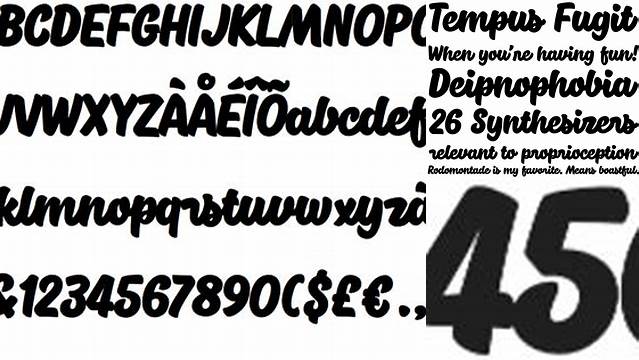
Introduction: Unleash Your Creativity with Cherry Brush Bold
Hey guys! Are you on the hunt for a font that screams boldness, creativity, and a touch of playful charm? Look no further! The Cherry Brush Bold font is your answer. This dynamic typeface is perfect for a myriad of design projects, from eye-catching headlines and striking logos to captivating social media graphics and engaging website banners. In this comprehensive guide, we'll dive deep into the world of Cherry Brush Bold, exploring its unique characteristics, its versatility across different design applications, and, most importantly, how you can snag it for free. Get ready to unleash your inner artist and elevate your designs with the sheer power and personality of Cherry Brush Bold!
When you are diving into the world of typography, it is important to recognize the impact a bold font can have on your overall design. The Cherry Brush Bold font, with its unique blend of playfulness and strength, stands out as a stellar choice for designers aiming to make a statement. This font isn't just about letters; it's about conveying emotion, energy, and a distinct personality. Its hand-drawn aesthetic adds a touch of authenticity and warmth, setting it apart from more sterile, digital fonts. Whether you are crafting a logo for a vibrant new brand, designing posters for an upcoming event, or revamping your website's visual identity, Cherry Brush Bold offers a versatile tool to capture attention and leave a lasting impression. Imagine the bold strokes gracing the cover of a magazine, the playful curves dancing across a promotional flyer, or the confident lettering anchoring a website's header. The possibilities are endless, and with the added bonus of being available for free download, Cherry Brush Bold opens up a world of creative potential for designers of all levels. This font is more than just a typeface; it's a gateway to expressing your unique vision and bringing your design ideas to life with a touch of artistic flair.
Finding the perfect font can often feel like searching for a needle in a haystack, especially when you are looking for something that balances uniqueness with readability. Cherry Brush Bold cleverly bridges this gap, offering a typeface that is both distinctive and easy on the eyes. Its bold strokes command attention, while the subtle imperfections of its hand-drawn style inject a sense of humanity and approachability. This makes it an ideal choice for projects where you want to convey a message with both confidence and warmth. Think about using it for the title of a children’s book, where its playful nature can spark imagination, or for a motivational poster, where its bold presence can inspire action. The versatility of Cherry Brush Bold extends beyond print materials; it shines just as brightly in digital applications. Consider incorporating it into your website design to add a touch of personality, or using it in social media graphics to stand out from the crowd. The font's inherent energy and dynamism make it particularly well-suited for projects that aim to capture attention and evoke emotion. Furthermore, the fact that it’s available for free download makes it an incredibly accessible resource for designers working on a budget. It’s a fantastic opportunity to experiment with a high-quality font without breaking the bank, allowing you to explore new creative avenues and push the boundaries of your design work. With Cherry Brush Bold, you’re not just choosing a font; you’re choosing a creative partner that can help you tell your story in a compelling and visually engaging way.
The beauty of the Cherry Brush Bold font lies not only in its aesthetic appeal but also in its versatility. It's a font that can adapt to a wide range of design styles and project requirements, making it an invaluable asset in any designer's toolkit. Its bold and energetic character makes it a natural fit for projects that require a strong visual impact, such as posters, flyers, and advertisements. However, its playful and slightly imperfect hand-drawn style also lends itself well to more lighthearted and creative applications, such as greeting cards, invitations, and even branding for businesses that want to project a friendly and approachable image. Imagine using it to create a logo for a coffee shop, where its warmth and character can instantly create a welcoming vibe, or for a blog about travel, where its adventurous spirit can capture the imagination of readers. The possibilities are truly endless. What sets Cherry Brush Bold apart is its ability to strike a balance between boldness and readability. While its strong strokes command attention, the font remains clear and legible, even at smaller sizes. This makes it suitable for use in body text as well as headlines, providing designers with a cohesive and visually appealing typographic solution. The availability of Cherry Brush Bold as a free download further enhances its appeal, making it accessible to designers of all levels and budgets. This democratization of design resources is a testament to the growing movement towards open-source creativity, empowering individuals to bring their ideas to life without financial constraints. In a world where visual communication is more important than ever, having access to a versatile and high-quality font like Cherry Brush Bold can make all the difference in creating impactful and memorable designs.
Key Characteristics of Cherry Brush Bold
So, what makes Cherry Brush Bold so special? Let's break it down. First off, it's a bold font, which means it has thick strokes that command attention. But it's not just bold; it's also a brush font, giving it a hand-drawn, slightly imperfect feel. This adds a touch of personality and authenticity that's hard to replicate with a standard font. The letters have a dynamic flow, almost like they're dancing across the page. This makes it perfect for designs that need a bit of energy and movement. Plus, the slightly rough edges give it a cool, edgy vibe that's perfect for modern designs. All these characteristics combine to make Cherry Brush Bold a unique and versatile font that can add a whole lot of character to your projects.
One of the defining characteristics of the Cherry Brush Bold font is its undeniably bold presence. The thick strokes of each letter command attention, making it an excellent choice for headlines, titles, and any design element that needs to stand out. This boldness is not just about size; it's about the confident and assertive personality that the font conveys. When you use Cherry Brush Bold, you are making a statement, ensuring that your message is heard and seen. This is particularly useful in a world saturated with visual information, where it's crucial to capture the audience's eye quickly and effectively. Think about how a bold headline can grab attention on a website homepage or how a striking logo can make a brand instantly recognizable. Cherry Brush Bold provides that visual punch, helping your designs to cut through the noise and leave a lasting impression. Its assertive nature makes it ideal for projects that aim to convey strength, confidence, and energy. Whether you're designing a poster for a music festival, creating a promotional flyer for a new product, or crafting a website banner for a bold initiative, Cherry Brush Bold will help you to communicate your message with impact and clarity. Its ability to command attention is one of the key reasons why it's such a valuable asset for designers looking to make a strong visual statement.
Beyond its boldness, the hand-drawn aesthetic of Cherry Brush Bold is another key characteristic that sets it apart. This feature injects a sense of authenticity and personality into the typeface, making it feel less rigid and more approachable than traditional fonts. The slightly imperfect lines and strokes give it a human touch, as if each letter was carefully crafted by hand. This hand-drawn quality is particularly appealing in a digital age, where many fonts can feel sterile and overly polished. Cherry Brush Bold, on the other hand, brings a sense of warmth and charm to designs, making them feel more inviting and engaging. This is especially beneficial for projects that aim to connect with the audience on an emotional level. Imagine using it for the logo of a small business that values personal connection or for the branding of a handmade product that emphasizes craftsmanship. The hand-drawn aesthetic of Cherry Brush Bold can instantly convey a sense of care, attention to detail, and genuine artistry. It’s a perfect choice for designers who want to create a more organic and human feel in their work, moving away from the coldness of purely digital aesthetics. By embracing the slight imperfections and irregularities of its brush-like strokes, Cherry Brush Bold adds a unique and memorable character to any design, helping it to stand out and resonate with the viewer.
Another defining characteristic of the Cherry Brush Bold font is its dynamic flow and energetic feel. The letters appear to dance across the page, creating a sense of movement and vitality that can bring a design to life. This dynamic quality stems from the irregular strokes and varying thicknesses of the letters, which mimic the natural flow of a brush as it moves across paper. This gives the font a sense of rhythm and energy, making it particularly well-suited for projects that aim to convey excitement, action, or creativity. Think about how it could be used to design a poster for a dance performance, where its fluidity and movement would perfectly reflect the energy of the dancers. Or imagine using it for the branding of an adventurous outdoor brand, where its dynamic character can evoke a sense of exploration and excitement. The energetic feel of Cherry Brush Bold also makes it a great choice for projects targeting a younger audience, as its playful and lively nature can capture their attention and spark their imagination. Whether you are designing a website, a flyer, or a social media graphic, the dynamic flow of Cherry Brush Bold will add a sense of vibrancy and dynamism to your work, helping it to stand out and make a lasting impression. Its ability to infuse designs with energy and movement is a key reason why it's such a popular choice for projects that need to feel fresh, engaging, and full of life.
In conclusion, the Cherry Brush Bold font stands out as a versatile and captivating typeface that can elevate your design projects to new heights. Its unique blend of boldness, hand-drawn aesthetics, and dynamic flow makes it a valuable asset for designers seeking to create impactful and memorable visuals. Whether you're crafting eye-catching headlines, designing logos that convey personality, or adding flair to your social media graphics, Cherry Brush Bold offers a creative solution that's both accessible and effective. The availability of free downloads further enhances its appeal, making it a fantastic resource for designers of all levels and budgets. By following the guidelines and tips outlined in this comprehensive guide, you can confidently incorporate Cherry Brush Bold into your designs, harnessing its power to communicate your message with clarity and style. Remember to prioritize safety when downloading fonts and to carefully review the license to ensure compliance. Experiment with different applications, font pairings, and design elements to discover the full potential of Cherry Brush Bold and to create visuals that truly resonate with your audience. Embrace the boldness, unleash your creativity, and let Cherry Brush Bold be your partner in bringing your design visions to life. With its unique character and versatile nature, this font is sure to become a staple in your design toolkit, helping you to make a lasting impression in the world of visual communication.